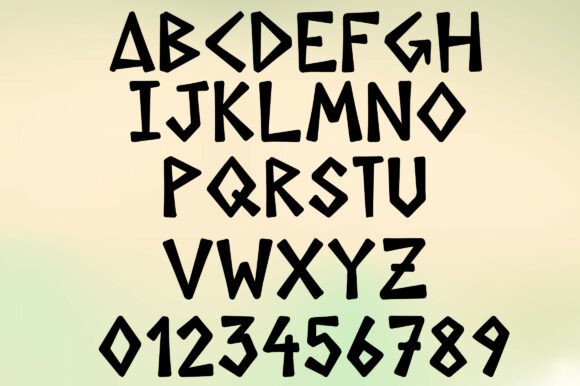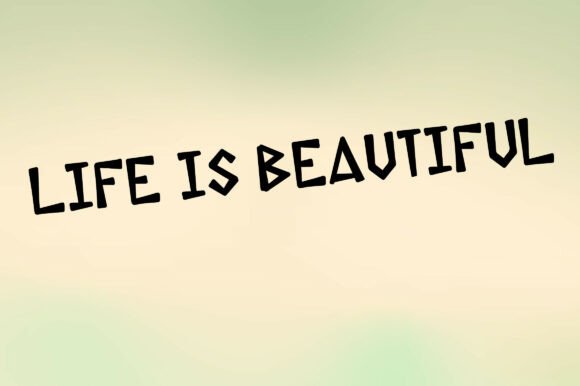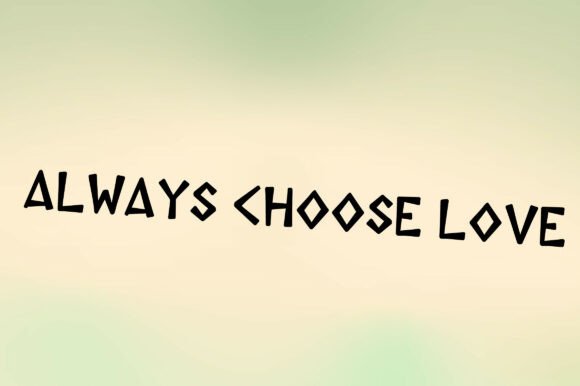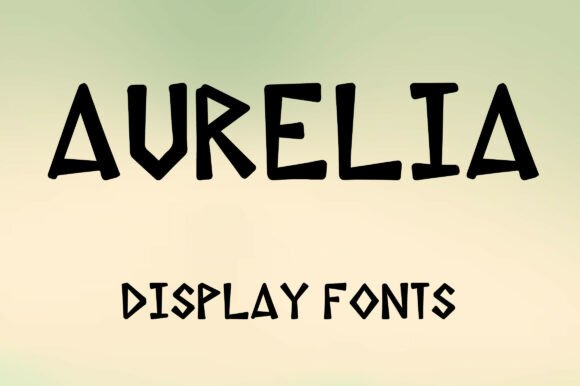
Aurelia Font: Elevate Your Designs with a Bold and Modern Typeface
In the world of typography, a font can make or break a design. If you’re looking for a bold and eye-catching typeface that exudes confidence and style, look no further than the Aurelia Font. This modern display font is handcrafted with a strong geometric personality, making it perfect for designers and crafters who want to elevate their designs.
The Characteristics of Aurelia Font
Aurelia is a bold display font that features thick black strokes, sharp angles, clean straight lines, and slightly irregular hand-drawn details. Its uppercase letterforms (A-Z) and numbers (0-9) are designed to create a stylish, confident, and eye-catching look that’s sure to grab attention. The font’s geometric personality gives it a modern and sleek feel, making it perfect for a wide range of design applications.
What Makes Aurelia Font Stand Out
So, what sets Aurelia apart from other fonts? Here are a few key characteristics that make it a standout:
- Bold and eye-catching: Aurelia’s thick black strokes and sharp angles make it a bold and eye-catching font that’s perfect for headlines, titles, and other design elements that need to grab attention.
- Modern and geometric: The font’s geometric personality gives it a modern and sleek feel that’s perfect for designers who want to create contemporary and stylish designs.
- Handcrafted details: Aurelia’s slightly irregular hand-drawn details give it a unique and human touch that’s perfect for designers who want to add a personal touch to their designs.
Use Cases for Aurelia Font
Aurelia is a versatile font that can be used for a wide range of design applications, including:
- Logos and branding: Aurelia’s bold and eye-catching design makes it perfect for logos and branding materials that need to make a statement.
- Posters and flyers: The font’s geometric personality and modern feel make it perfect for posters and flyers that need to grab attention.
- Packaging: Aurelia’s bold and stylish design makes it perfect for packaging materials that need to stand out on store shelves.
- Headlines and titles: The font’s bold and eye-catching design makes it perfect for headlines and titles that need to grab attention.
- Book covers: Aurelia’s modern and geometric personality makes it perfect for book covers that need to make a statement.
- Social media graphics: The font’s bold and eye-catching design makes it perfect for social media graphics that need to grab attention.
- Creative projects: Aurelia’s unique and stylish design makes it perfect for creative projects that need a bold and memorable typeface.
Why Designers and Crafters Love Aurelia Font
Designers and crafters love Aurelia Font for a variety of reasons, including:
- Its versatility: Aurelia can be used for a wide range of design applications, making it a great addition to any designer’s toolkit.
- Its unique style: The font’s bold and geometric personality makes it a standout from other fonts, giving designers a unique style that can help their designs stand out.
- Its ease of use: Aurelia is easy to use and pairs well with a variety of other fonts, making it a great choice for designers who want to create professional-looking designs quickly and easily.
In conclusion, Aurelia Font is a bold and modern display font that’s perfect for designers and crafters who want to elevate their designs. Its unique style, versatility, and ease of use make it a great addition to any designer’s toolkit. Whether you’re creating logos, posters, packaging, or social media graphics, Aurelia is a great choice for any design project that needs a bold and memorable typeface.